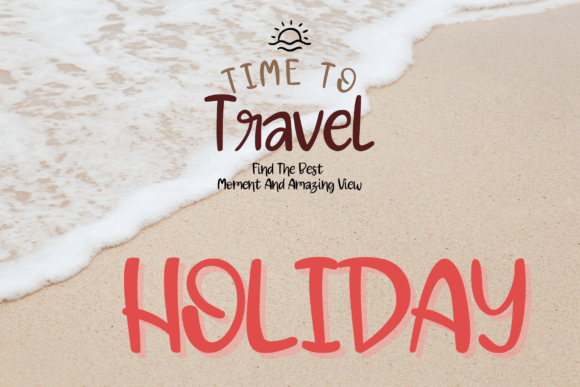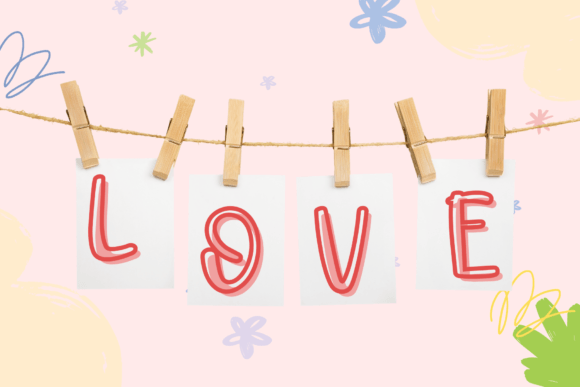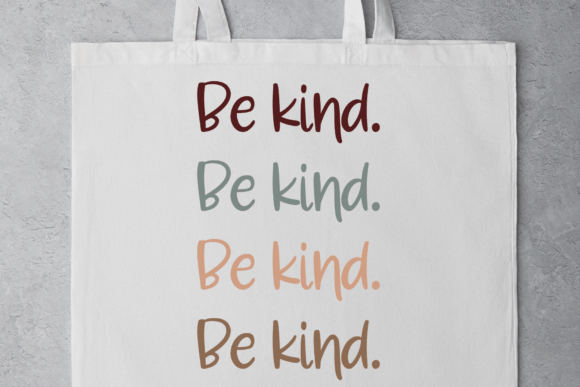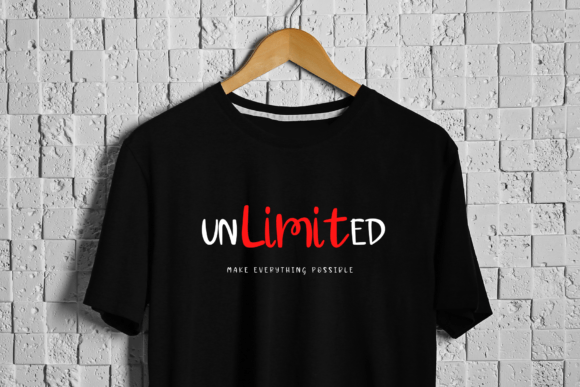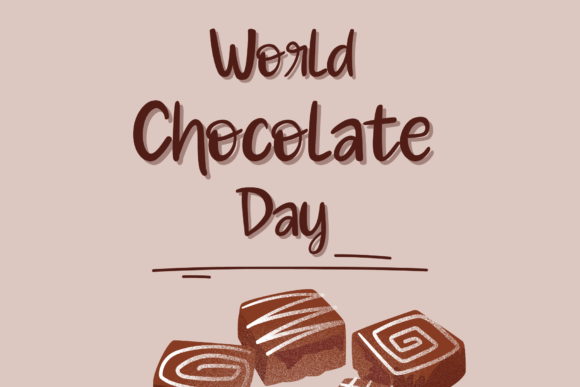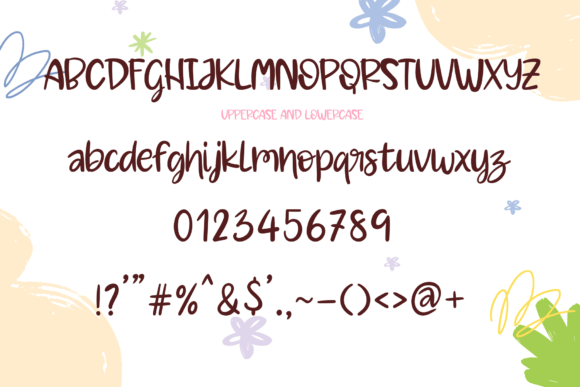
Introduction to Monday Chocolate Font
Monday Chocolate is a cute and friendly handwritten font.
It will add elegance and class to any of your design projects This font can be used to write various kinds of products according to the aspect of each need, projects, logos, wedding designs, social media posts, advertisements, product packaging, product designs, label, photography, watermark, invitation, stationery, and any other projects.
Monday Chocolate Font offers exceptional quality and versatility, making it a valuable addition to your design toolkit. Whether you’re creating for personal projects or commercial use, Monday Chocolate Font delivers professional results.